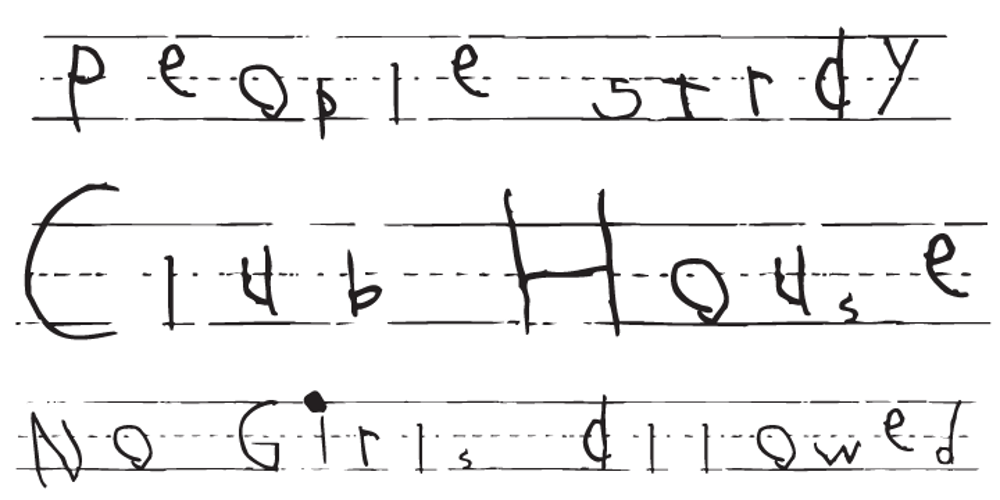
Abecedarian
Abecedarian font
Abecedarian Font Family was designed by Samuel Hoppe and published by The Type Fetish. Abecedarian contains 1 styles and family package options. Chank claims to have the fastest type design, we think we have the youngest. Samuel was merely four years old when he wrote out his first face. We are expecting many more brilliant typefaces from this upcoming designer. Please note that this font has no numbers or punctuation symbols; Samuel just did letters at that time.